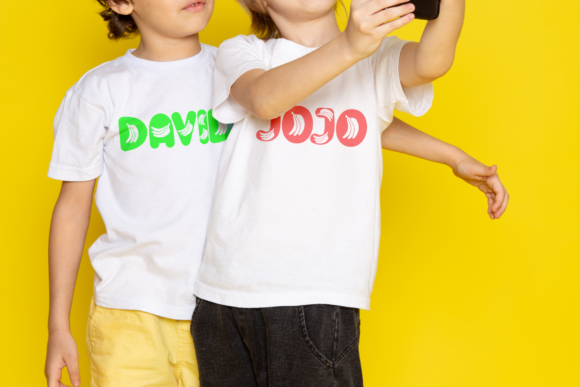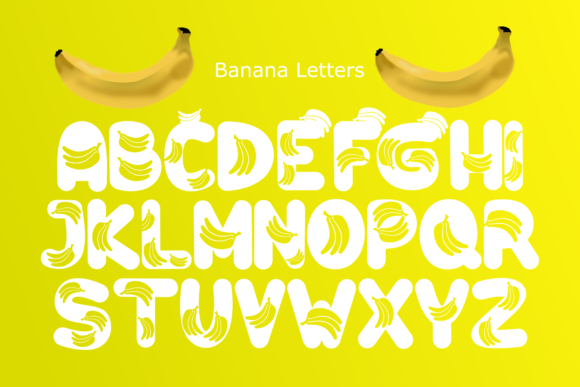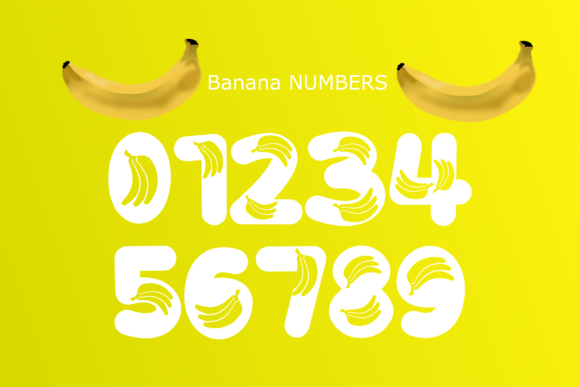
The Perfect Touch: Unlocking the Power of Banana Font
Have you ever been brainstorming a new project and suddenly, the perfect idea strikes you? Maybe it was a bold color combination, an unusual layout, or an eye-catching font – in this case, it was all about the font. I vividly remember the moment I discovered the Banana Font. Its vibrant colors and playful feel instantly caught my attention and made me wonder what it could bring to my next creative project.
Banana is a bold and colorful display font designed to add a friendly touch to your designs. Its versatility makes it a valuable asset for designers looking to add a pop of color and personality to their work. Whether you’re creating a social media campaign, a branding identity, or a promotional poster, the Banana Font is sure to make your ideas stand out.
Banana Font Key Features
- Font Family: Banana Font is a custom-designed font family, created specifically for a unique and playful look.
- Unique Characteristics: Banana Font features a distinctive, curved shape with a warm, yellow hue, reminiscent of a banana peel. This unique design element sets it apart from other fonts and adds a playful touch to any design.
- Font Styles: Banana Font comes in a range of styles, including regular, italic, bold, and bold italic, providing designers with flexibility and creative options.
Designer Review: Banana Font
Overall, I think the Banana Font has some great qualities that make it a fun and unique addition to any design project. ✨ Here are a few things that really stand out:
- Customizable color palette: I love how the font’s bright, cheerful colors can be adjusted to fit the tone of any project.
- Variety of styles: From bold to script, the Banana Font has a range of styles that can add some much-needed personality to your designs.
- Legibility: Despite its playful nature, the font is still easy to read, even at smaller sizes.
That being said, there are a few limitations to keep in mind. ⚠️ Here are a few things that could be improved:
- Limited language support: Unfortunately, the Banana Font only supports a limited number of languages, which may make it less useful for projects that require a more global reach.
- Overuse: The font’s playful nature can be overwhelming if used too much, so be sure to balance it with other typography choices.
- Lack of bold weights: While the script and regular weights are great, the bold weights feel a bit thin and could be more robust.
Overall, I think the Banana Font is a fun and creative addition to any design project. While it may not be perfect, its unique qualities and customization options make it a great choice for the right project.
Use Banana Font for creative and playful designs, such as:
1. Social media graphics
2. Marketing materials
3. Children’s books and educational materials